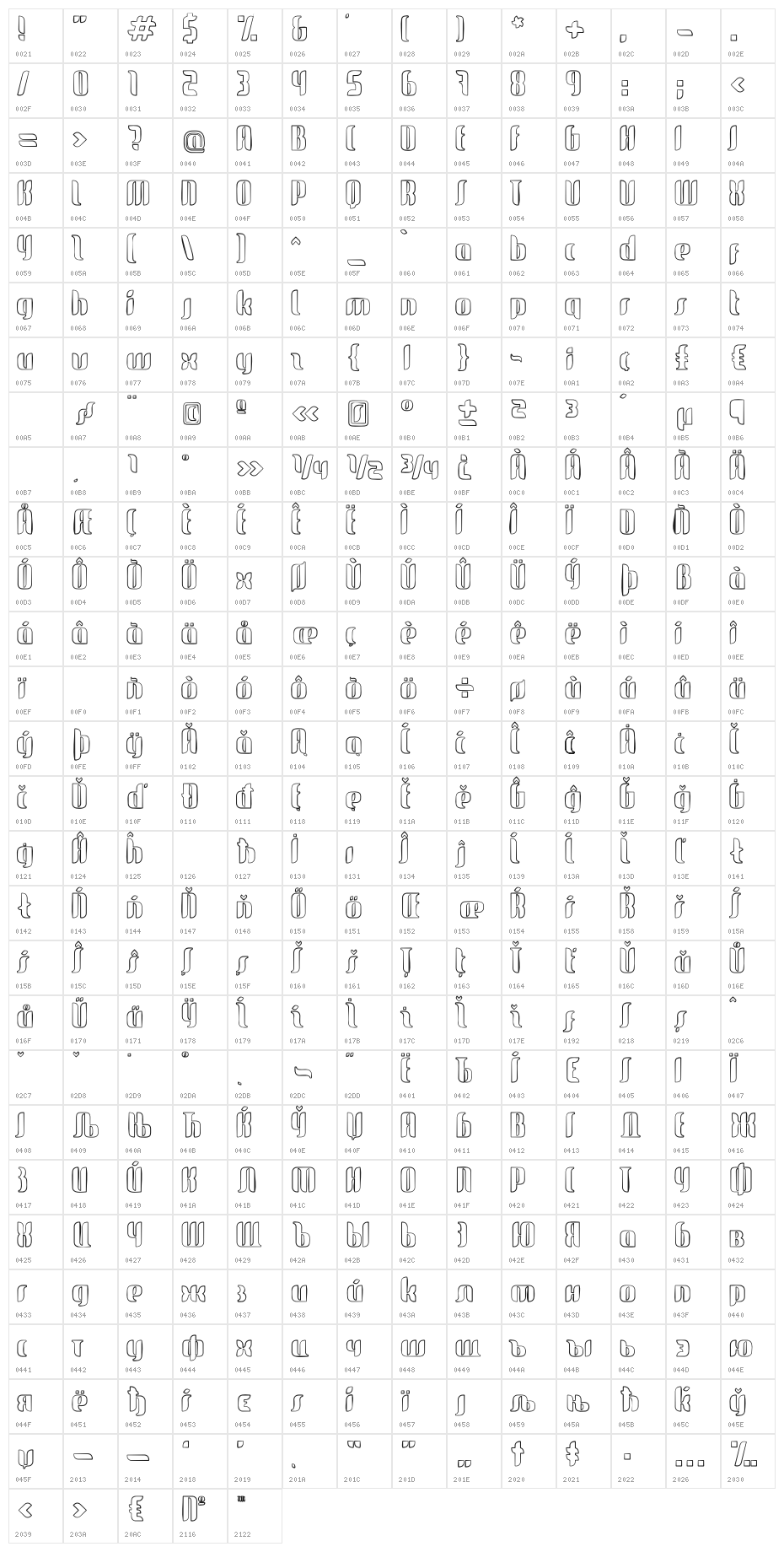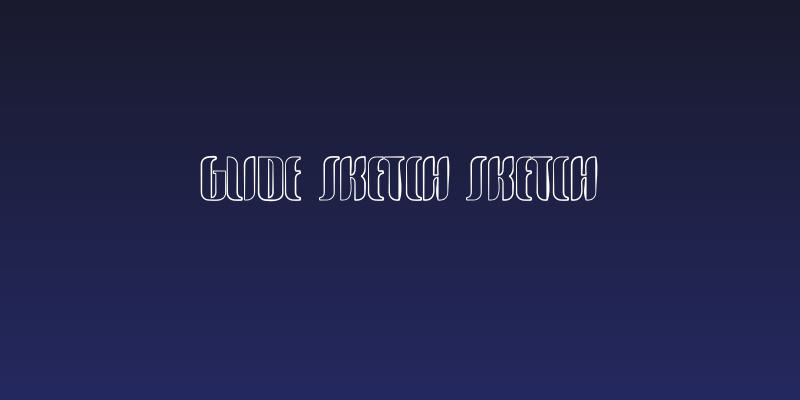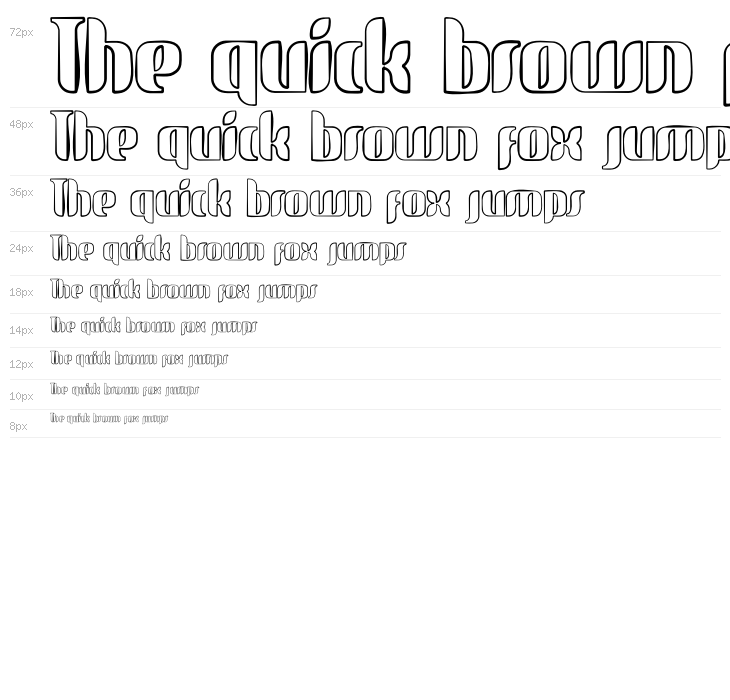
glide sketch sketch Font
glide sketch sketch Description
This font features a unique, outlined style with a modern and artistic flair. Each character is designed with a continuous, bold outline that gives it a sketch-like appearance. The uppercase and lowercase letters maintain a consistent height, creating a uniform look across the alphabet. The numbers and special characters follow the same design principles, ensuring a cohesive visual experience. The font's playful yet structured design makes it suitable for creative projects where a distinctive and eye-catching typeface is desired.
| Proposed Projects | Ideal for posters, logos, branding, and creative design projects where a bold and artistic font is needed. |